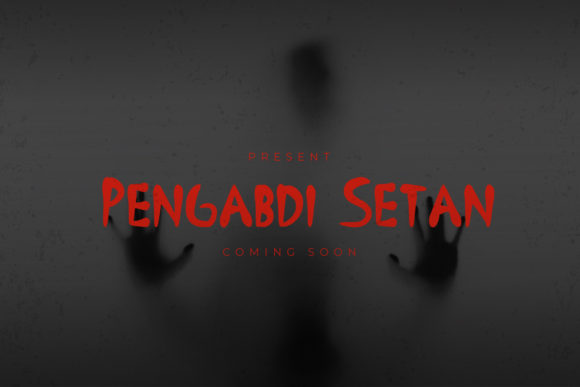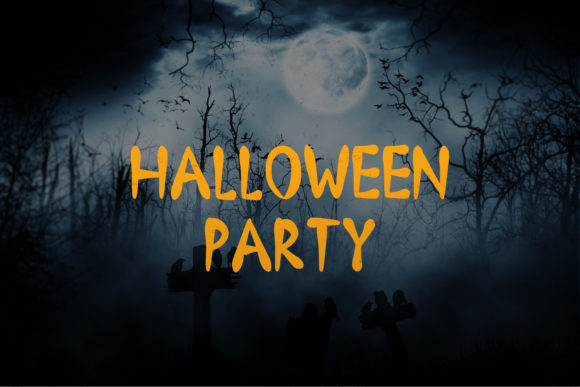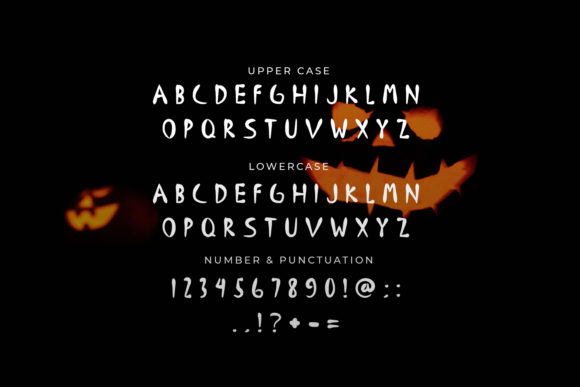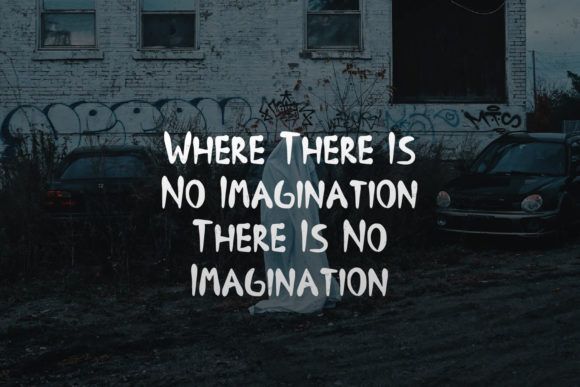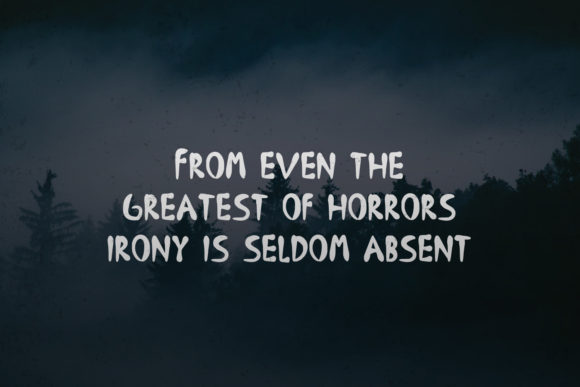
Introduction to Secret Message Font
Secret Message is a quircky display font with a horrow theme.
It is perfect for movies, horror posters and also suitable for Hallowen themes Secret Message will look amazing in any context, whether itโs used against a busy background or as a standalone headline.
Key Features of Secret Message Font